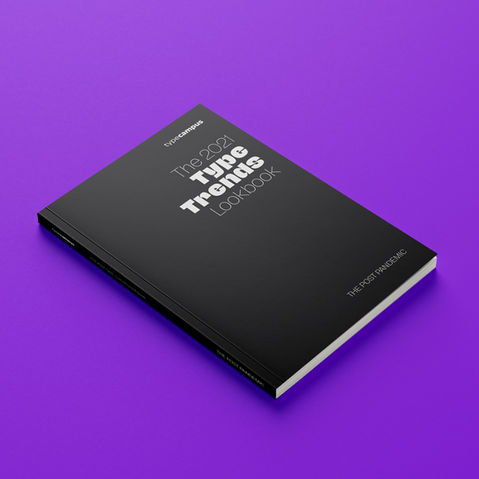
THE TYPE TRENDS PROJECT
The Type Trends Project is a series of lookbooks created annually, showcasing the latest trends in typography and type design. Created by the Zetafonts Type Foundry, it's a visual guide aimed at designers, creatives, and type enthusiasts who want to stay updated on emerging trends and best practices in typography.
THE LOOKBOOK SERIES
THE COUNTERSPACES
The counterspaces – Typography in the age of Black Swans, presents the work and the thoughts of some of the most interesting and innovative creators and thinkers in the typographic field, and guides the reader in a hidden world of undefined and antagonistic areas in typographic design. These “counter-spaces” identify the hidden, emerging trends in typography and design that are responsive to the ever-changing world around us, including not only visual styles, but also business models, work philosophies, and social design considerations.
It is an exploration of the many contemporary counter-trends in the world of design and typography, that have arisen in response to the unpredictable events that have occurred in recent years.
The Counterspaces features the work and the words of: Gab Bois, Victor Baltus, Beatrice Caciotti, Kevin Cantrell, Ninan Chacko (Monotype), Andy Cruz (House Industries), Jessica Deseo (The Dieline), Oded Ezer, Brandon Fretwell, Måns Grebäck, Lucas Hesse, Loukas Karnis (TypeRoom), Erik Kessels (Kesselskramer), Deborah Lynne Kugler, Tien Min Liao, Pann Lim (Rubbish Magazine), Kristie Malivindi (JKR), Nunzio Mazzaferro (Collletttivo), Raven Mo, Valerio Monopoli, Kiel D. Mutschelknaus, Duy Nguyễn, Toshi Omagari, Dirk Petzold, Ksenya Samarskaya, Alex Slobzheninov, Panos Vassiliou (Parachute), Martyna Wędzicka-Obuchowicz
THE NEW NORMAL
The release of the 2022 Type Trends Lookbook – The New Normal coincided with dramatic and unexpected events – a period that demanded awareness and knowledge by everybody working in visual design and communication. Rather than just looking at the trendy surface styles, designers and brands are required to pay attention to the meaning of their visual choices. And whether this meaning is found in a shared dream or in a choral action, this book can be a useful tool to help your design become more critical and conscious of the world around us.
Its pages feature the works and the ideas of Nadine Chahine, Amber Weaver, Hector Ayuso (Offf! Barcelona), Francesco Franchi, Julia Kahl (Slanted), Raissa Pardini, Tina Touli, TypeType, Valentina Casali (Sunday Büro) and Bill Gardner (Logolounge).
THE POST PANDEMIC
The 2021 edition - The Post Pandemic was developed collecting insights and concepts to help the design community orient their work in a relevant direction, in uncertain times.Despite the pandemic, brands didn’t stop communicating and companies learnt to adapt their communication and tone of voice in the new panorama of social distancing, isolation and lockdowns.
Analyzing this panorama lead us to develop a new Type Trends LookBook, which collects insights and concepts to help the design community understand better how these collective drivers inform design trends and visual styles.
THE 2020 TYPE TRENDS
The 2020 Type Trends Look Book was the very first in the series. It is not only a detailed and useful explanation of the main tendencies in typography but also a collection of Zetafonts' best work to show examples of use to inspire the readers with colour palettes, layout suggestions and sample applications in different fields. It demonstrates type at work, in bridging cultural values and commercial effectiveness. Divided into four purposeful sections, our Type Trends Look Book helps designers choose the best fonts they need for their projects.